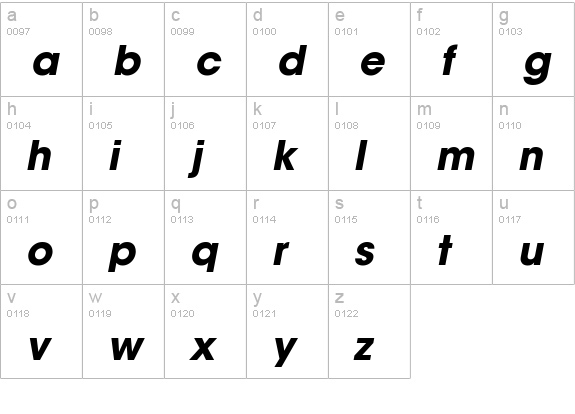
Trendex Black SSi Bold Italic Font Details
Trendex Black SSi Bold Italic is a maximum-weight, dramatic, italic variant in the Trendex typeface family \xE2\x80\x94 well suited to maximum-impact headlines, posters, and packaging.
Introducing Trendex Black SSi Bold Italic, a stunning font that effortlessly combines elegance and boldness in every character. This font exudes a sense of sophistication and modernity, making it perfect for a wide range of creative projects. With its sleek and stylish design, Trendex Black SSi Bold Italic captures attention and leaves a lasting impression. Its italicized form adds a touch of dynamism and flair, adding depth to any text or design it is used in. This font is not only visually captivating, but also highly versatile. Whether you are designing a logo, creating eye-catching headlines, or crafting invitations, Trendex Black SSi Bold Italic will elevate your work to new heights. One of the best things about Trendex Black SSi Bold Italic is that it is available for free download at FontsMarket.com. This means that you can easily access and use this magnificent font in all your personal and commercial projects without any cost. Don't miss out on the opportunity to enhance your designs with the elegance and impact of Trendex Black SSi Bold Italic. Download it for free now at FontsMarket.com and unlock a world of creative possibilities.